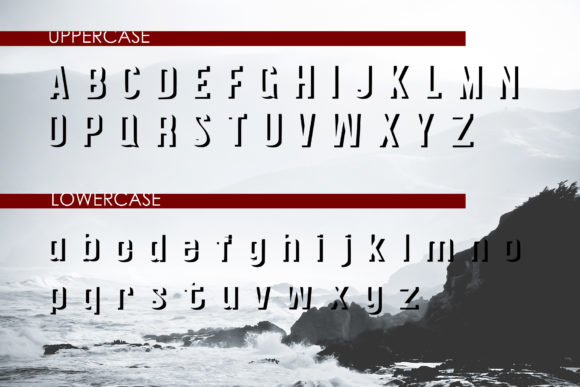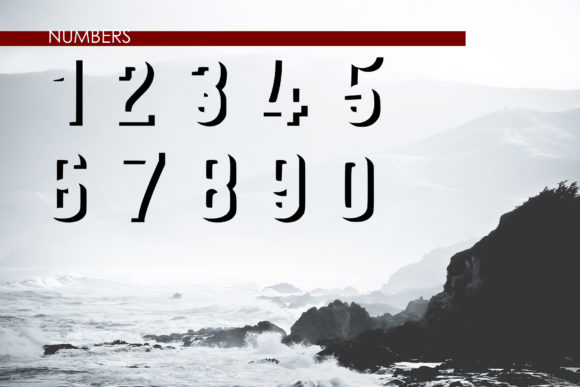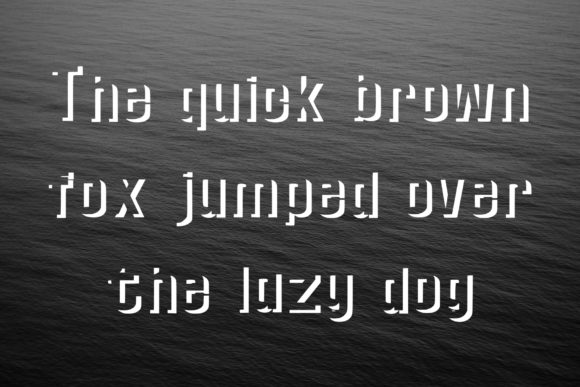
The Favela Font: A Shadow Typeface Like No Other
I still remember the design project that led me to discover the Favela font. I was working on a branding project for a trendy boutique hotel, and I needed a font that would capture the vibrant, eclectic spirit of the city. After hours of scouring font websites and trying out different typefaces, I stumbled upon Favela – a shadow typeface with an incredibly unique look that instantly caught my eye.
An Honest Review of Favela
So, what makes Favela so special? Here are some things I love about this font:
- ✨ Unique shadow effect that adds depth and dimension to any design
- 🎨 Versatile and works well for a variety of design projects, from branding to packaging
Of course, no font is perfect, and Favela does have a few quirks:
- 🤔 Some users may find the shadow effect a bit too bold or overpowering
- ⚠️ Not ideal for body text or long blocks of text, as it can be a bit too ornate
The Backstory of Favela
Favela was designed by a team of typographers who wanted to create a font that would capture the vibrant spirit of urban landscapes. Inspired by the colorful streets of Rio de Janeiro, Favela is a font that’s both bold and beautiful. Whether you’re designing a logo, a brochure, or a website, Favela is sure to make a statement.
| Q: What is the Favela font? | A: Favela is a shadow typeface with an incredibly unique look that’s perfect for adding depth and dimension to your designs. |
| Q: Is Favela suitable for body text? | A: While Favela is highly legible, it’s not ideal for body text or long blocks of text. It’s best used for headlines, titles, and short paragraphs. |